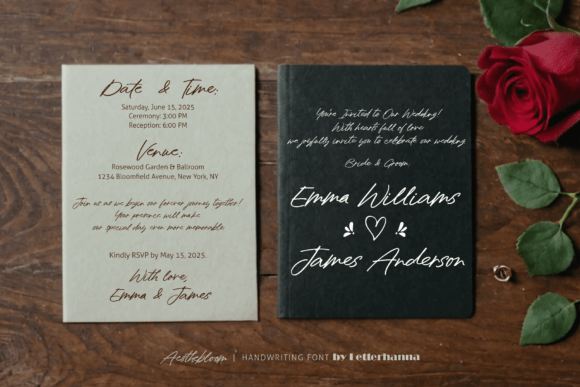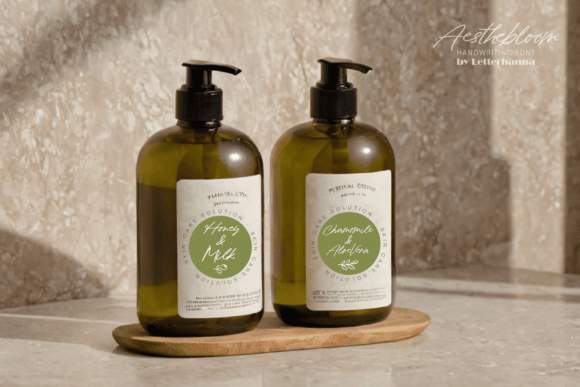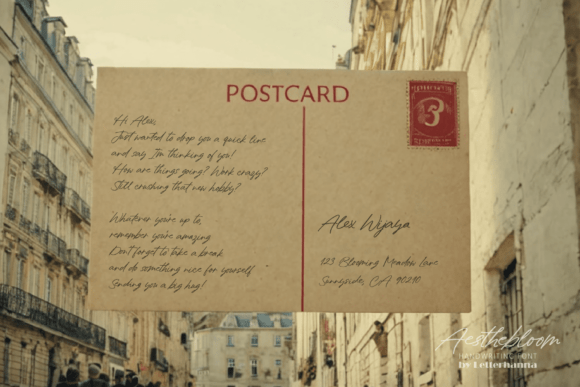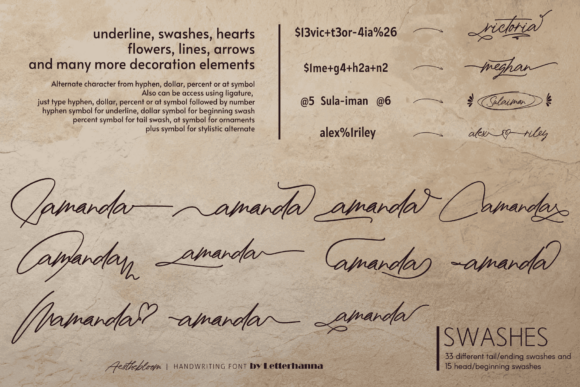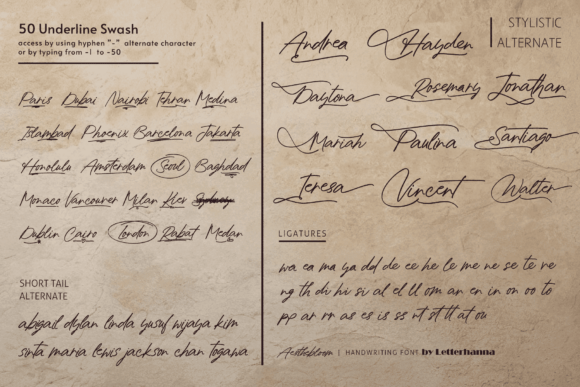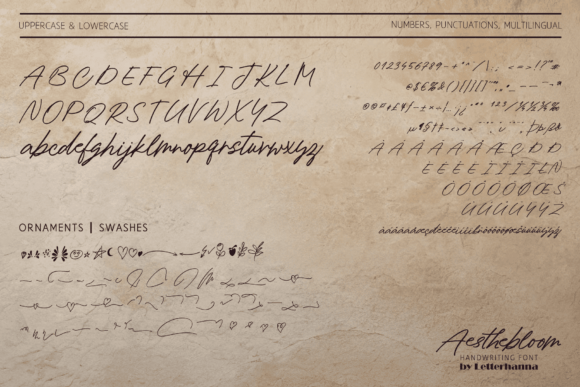
Discover the Art of Beautiful Typography with Aesthebloom Font
There’s something magical about the first moment you sit down with a blank page and a pen. The blank slate is full of possibilities, and the world of creative potential stretches out before you like a blank canvas. For designers, this moment is where the magic happens – where a simple idea can blossom into something truly extraordinary. And that’s exactly what the Aesthebloom Handwriting Font is designed to inspire – a world of elegant, artistic charm that brings warmth and sophistication to any design.
With its natural, flowing style and extensive collection of stylistic alternates, swashes, and ligatures, the Aesthebloom Font offers endless possibilities for creative expression. Whether you’re looking to add a modern chic vibe or a timeless calligraphic touch to your design, this font adapts effortlessly to your vision. As a valuable addition to any designer’s toolkit, the Aesthebloom Font is a game-changer for anyone looking to elevate their typography and make every word a work of art.
Aesthebloom Font Key Features
- Font Family: Aesthebloom comes in multiple font weights and styles, offering a total of 12 font families to choose from.
- Unique Characteristics: The font features a unique blend of hand-painted and digital elements, resulting in a distinctive and elegant aesthetic.
- Language Support: Aesthebloom font supports a wide range of languages, including Latin, Cyrillic, and Greek alphabets, making it a versatile choice for global designs.
Aesthebloom Font Review
Aesthebloom Font is a beautiful, hand-drawn font that I was excited to dive into. At first glance, I was immediately drawn in by its ✨ elegant and whimsical feel ✨. The intricate details and subtle texture make it perfect for adding a touch of sophistication to any design project.
One of the standout features of Aesthebloom is its ✨ wide range of ligatures and swashes ✨, which add an extra layer of personality to text. This makes it perfect for creating unique and eye-catching headings, titles, or even social media graphics.
- ⚠️ Limited character set: Aesthebloom currently only includes basic Latin characters, which may be a drawback for designers working with non-English text.
Overall, I would give Aesthebloom Font 4 out of 5 stars. While it has some limitations, its unique charm and versatility make it a great addition to any designer’s toolkit. With a little patience and experimentation, I’m confident that designers can work around its limitations and create some truly stunning designs.
Tips for Getting the Most Out of Aesthebloom Font
1. Experiment with different font sizes and styles to achieve the desired look.
2. Use the Aesthebloom Font in combination with other design elements to create a cohesive look.
3. Consider using the Aesthebloom Font in a bold or italic style to add emphasis.
2. Branding and logo design.
3. Digital graphics and illustrations.
4. Editorial and publishing design.
Great Vibes Font is a beautiful, modern script font perfect for creating a whimsical and elegant look. It’s ideal for use in invitations, logos, and other design elements where a touch of sophistication is desired.
Compared to Aesthebloom Font, Great Vibes Font has a more refined and polished appearance, making it suitable for a wider range of design applications. While Aesthebloom Font has a more playful feel, Great Vibes Font is more versatile and can be used in both formal and informal designs.
What is the recommended font size for Aesthebloom Font?
The recommended font size for Aesthebloom Font varies depending on the application and the desired level of legibility. As a general guideline, use font sizes between 10pt and 24pt for body text and larger sizes for headings and titles.